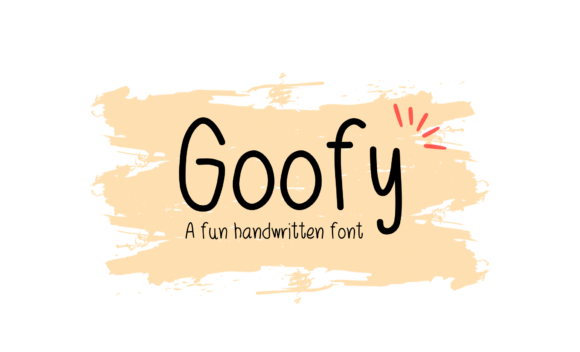
Step into the enchanting world of Goofy Font, a whimsical script that captivates hearts with its playful charm. This handwritten masterpiece is a celebration of creativity, transforming digital designs into captivating expressions of joy. Goofy Font is not just a font; it's an adventure, a journey into a realm where imagination runs wild and words dance with delight.
With its charming curves and playful strokes, Goofy Font is the perfect companion for digital prints, adding a touch of whimsy to your creations. Let your imagination soar as you craft unique phrases for Facebook and Instagram, capturing the attention of your audience with messages that sparkle with personality. Unleash your creativity with planners and journals adorned with Goofy Font, transforming them into cherished keepsakes that reflect your unique style. Whether it's a casual note or a formal presentation, Goofy Font adds a touch of magic to every occasion.
Goofy Font is more than just a collection of letters; it's a gateway to a world of endless possibilities. Its versatility knows no bounds, making it the perfect choice for a wide range of projects. From eye-catching logos that demand attention to elegant invitations that exude sophistication, Goofy Font adapts seamlessly to your vision, bringing your creative dreams to life. It's the font that turns the ordinary into the extraordinary, transforming words into works of art.
Embrace the magic of Goofy Font and embark on a creative journey like no other. Discover the boundless possibilities that await you as you let your imagination run free. Goofy Font is more than just a font; it's an experience, a celebration of creativity that will leave an unforgettable impression on your audience. Dive into the world of Goofy Font and let your creativity soar to new heights.